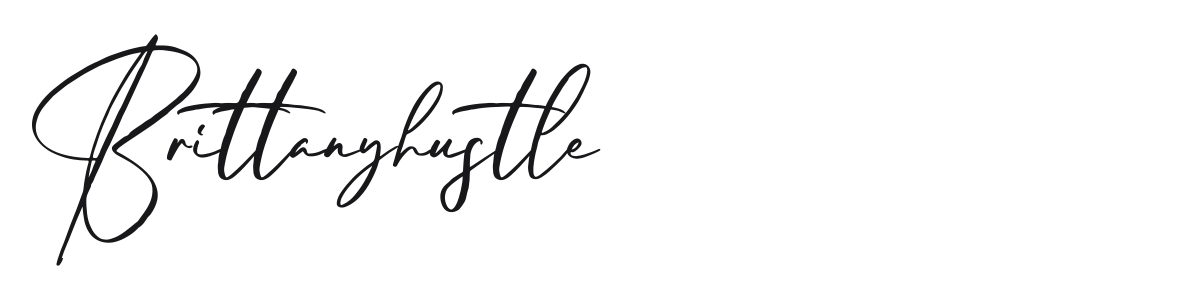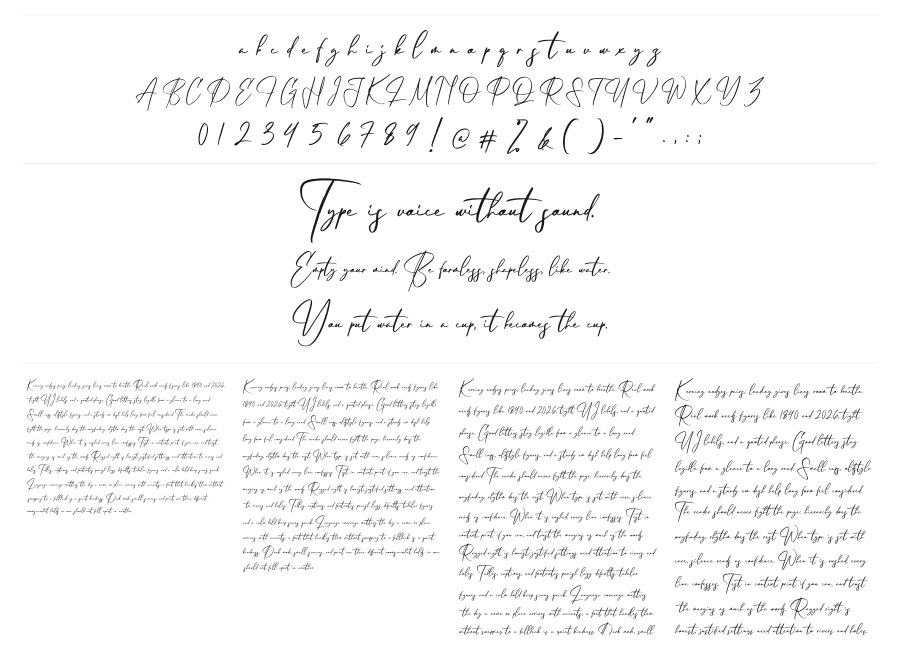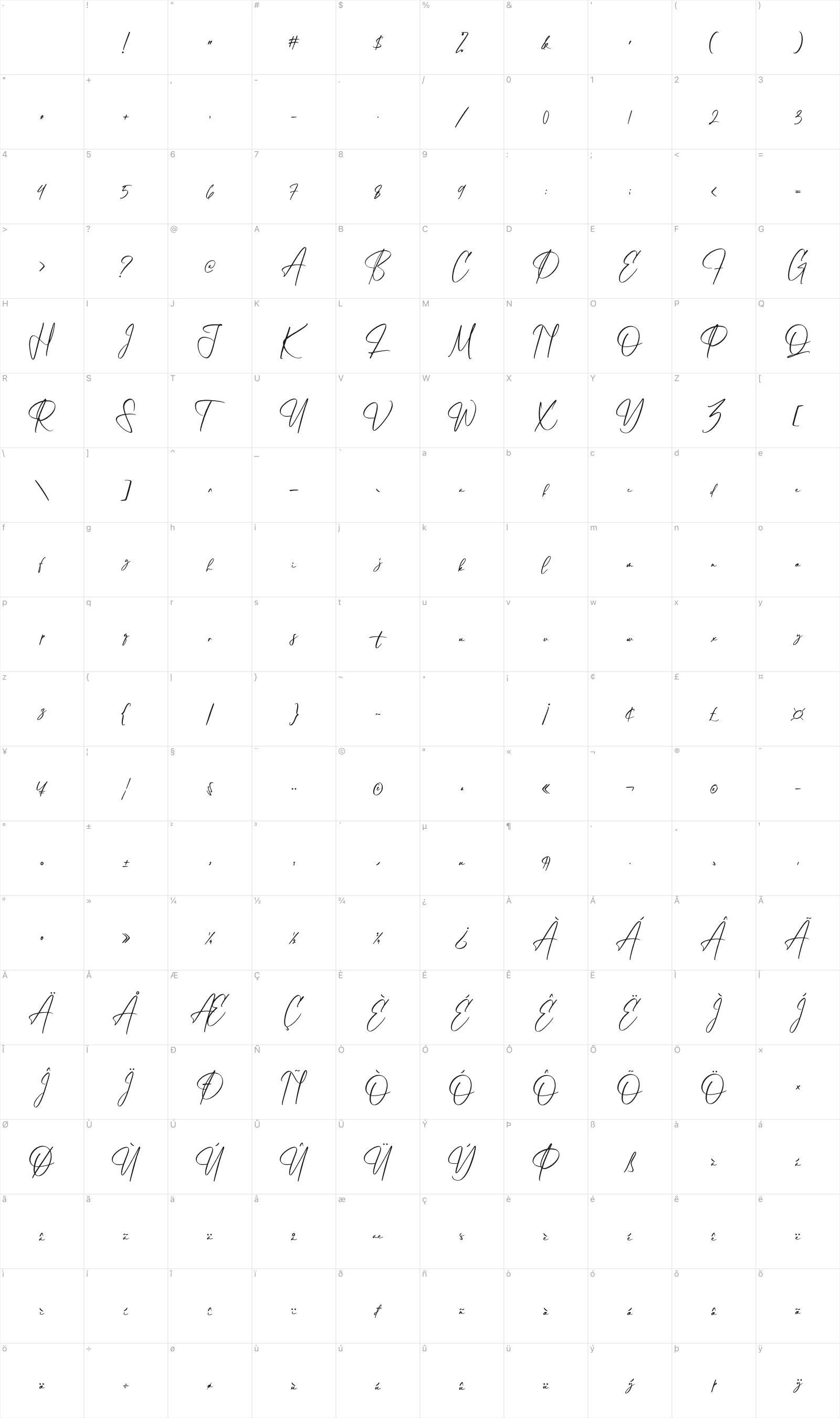
Brittanyhustle
BrittanyHustle is a loose, flowing casual script with a natural signature energy and dramatic stroke contrast. Sweeping connections, looping ascenders, and a lively variable baseline give it the feel of ink on paper, fast and confident. It suits branding, packaging, and editorial work where personality matters.